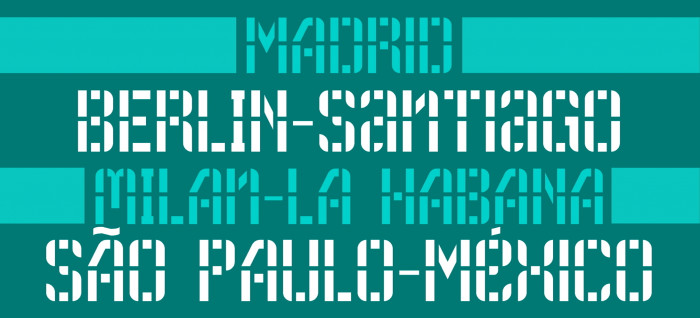
Unicase font inspired by Block02, the only FS published by the interesting Mexican type designer Manolo García from BlueTypo. I've put some "soft" alternatives -a, e, f, i, m, n, q, w- in the lowercase (I've taken also more creative freedom than the original font, which used a limited set of bricks). Enjoy.
Sorry, Manolo Guerrero (I don't know where the García appeared).
Carelessness, ill-conceived forms, as if this stencil was created by a person who does not understand fonts, creates a sense of believability, as if such an everyday font that can really be found on a streets or on a quick handicraft poster. Nice!
@Dmitriy Sychiov: Dear friend, I don't understand what you mean specifically with your comment, but it is very welcome as usual. Could you explain it to me a little more, please?
@elmoyenique: I understood why you could not understand me. I didn’t mean that you don’t know about fonts, but that the style of the font is very homemade - professional stencil fonts don’t look like that. Both unicase and the combination of different forms enhance the effect of homemadeness, and this is not a disadvantage, but a dignity of the font. I would also make a U from an inverted N.
By homemade, I mean that it is easy to make it yourself, using a ruler and compass, and not based on existing professional bezier fonts, which still need to be printed or copied. I hope you understand me now.